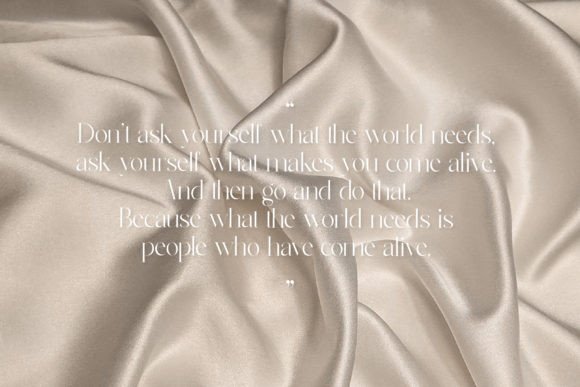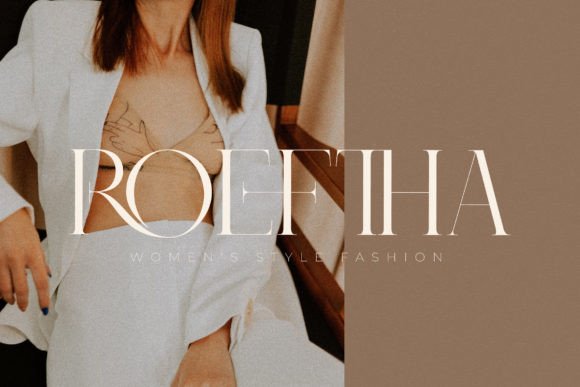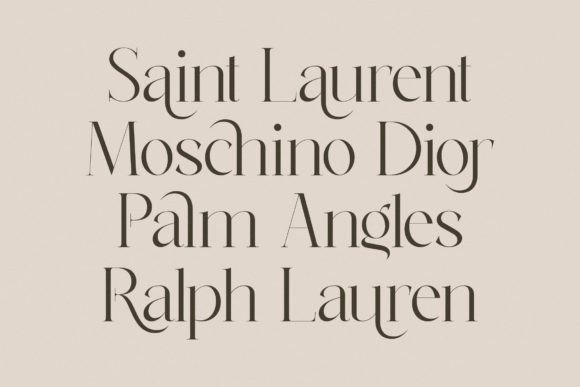
Introduction to Ramisland Font
Have you ever been stuck on a creative project, searching for the perfect font to elevate your design and leave a lasting impression? You’ve scrolled through countless options, only to find that they lack the unique touch you’re looking for. That’s where the Ramisland Font comes in – a modern and classy serif font that’s sure to take your designs to the next level.
With its distinctive style and sleek look, the Ramisland Font is perfect for designers who want to create an elegant and luxury feel in their work. Whether you’re designing a logo, book title, or magazine cover, this font is sure to make a statement.
Key Features of Ramisland Font
- High-quality design: Ramisland Font is a premium font suitable for any creative project requiring a professional touch.
- Unique characteristics: Ramisland Font features a distinctive and elegant design, perfect for adding a touch of sophistication to any creative project.
Honest Review: Ramisland Font
As a designer, I’m always on the lookout for high-quality design resources that can elevate my creative projects. Recently, I stumbled upon the Ramisland Font, and I’m excited to share my honest review.
What works well: ✨ The Ramisland Font offers a unique and stylish look that’s perfect for modern design projects. The font is highly customizable, allowing you to adjust the size, color, and style to fit your needs. The transparent background feature is also a great touch, making it easy to integrate into any design.
What’s not so great: ⚠️ One of the limitations of the Ramisland Font is that it’s a free download, which means the quality may not be as high as some paid fonts. Additionally, the font may not be as comprehensive as some other popular fonts, with limited character sets and styles.
Overall, I’d say the Ramisland Font is a great resource for designers looking for a free, high-quality font. While it may not be perfect, it’s a solid choice for creative projects that require a modern, stylish look.
Key features:
- Unique and stylish design
- Highly customizable
- Transparent background feature
- May not be as comprehensive as some other fonts
Tips for Getting the Most Out of Ramisland Font
To get the most out of the Ramisland Font, use it in conjunction with a high-quality design resource, such as a transparent background image. This will allow you to create a visually appealing and professional-looking design.
The Ramisland Font is a versatile design resource that can be used in a variety of creative projects, including logos, brochures, and social media graphics. Its high-quality design and transparent background make it an ideal choice for designers looking to create professional-looking designs.